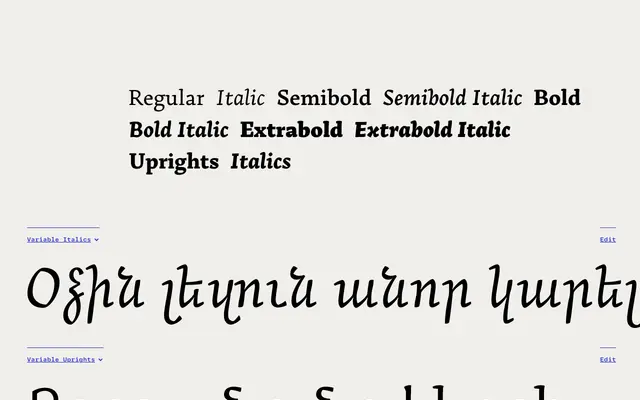
Arek Armenian
Rosetta · Khajag Apelian · 2012
An award-winning Armenian and Latin family by Khajag Apelian, rooted in calligraphic manuscript research with a pioneering cursive style designed for continuous reading.
Originally conceived for school books, Arek draws on extensive study of Armenian manuscript traditions to produce a lively, angular text face with genuine calligraphic character. The cursive italics broke new ground in Armenian digital typography, and the Latin component is engineered to harmonise through shared vertical proportions and a modest x-height. Eight styles cover a wide editorial range, supported by expert OpenType features including Armenian ligatures, contextual alternates, the eternity and pomegranate symbols, and Eastern and Western Armenian language variants. The family won first prize at Granshan 2010, an ATypI Letter.2 award in 2011 and a Typographica Best of 2013 citation.
Arek draws on the calligraphic roots of Armenian manuscript tradition, with angular details and a pioneering cursive style; the Latin component shares proportions and serif styling, making it a humanist serif across both scripts.